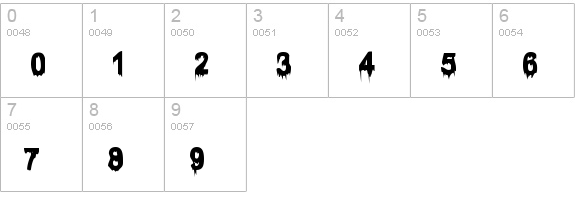
Wet1 Becker Font Details
Introducing Wet1 Becker font, a stunning typeface that combines elegance with a touch of playfulness. This versatile font is perfect for a wide range of creative projects, from branding and advertising to invitations and posters. With its sleek curves and unique letterforms, Wet1 Becker will captivate your audience and make your message stand out. Whether you're designing a logo for a trendy fashion brand or creating eye-catching headlines for a magazine spread, this font is sure to make a lasting impression. One of the best things about Wet1 Becker font is that it is free to use. That's right, you can freely download this font at FontsMarket.com, your go-to resource for high-quality fonts. This means that you can bring your design ideas to life without breaking the bank. Not only does Wet1 Becker offer exceptional aesthetics, but it also provides great functionality. With a wide range of weights and styles available, you can easily customize your designs and achieve the perfect look for your project. Whether you prefer a bold and dramatic statement or a more subtle and refined approach, this font has got you covered. So why wait? Start exploring the creative possibilities with Wet1 Becker font today. Download it for free at FontsMarket.com and take your designs to new heights. With its unique charm and versatility, this font is a must-have for any designer or creative professional. Don't miss out on the opportunity to add this gem to your font collection.